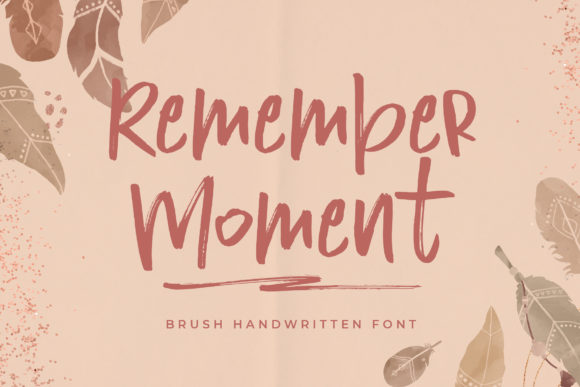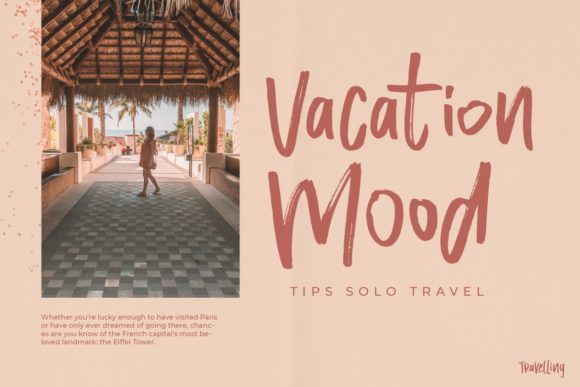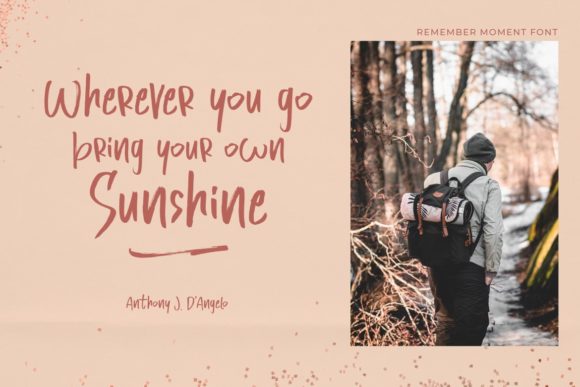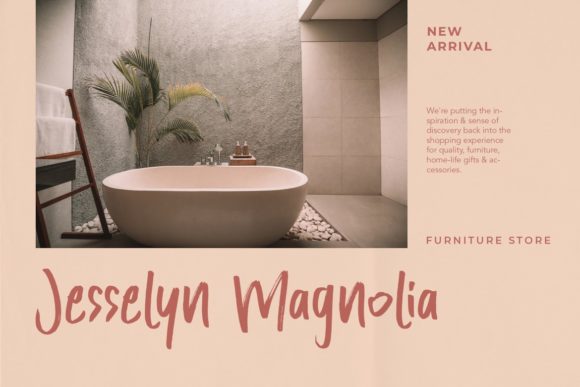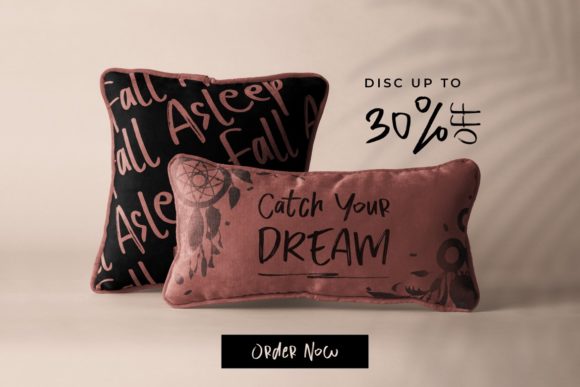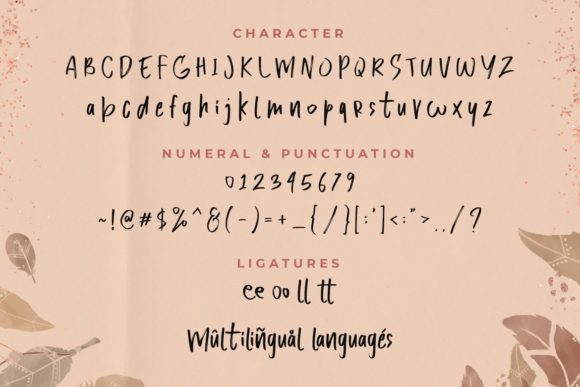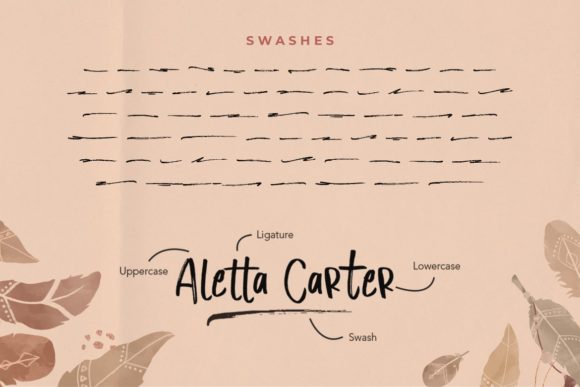
Remember Moment Font
About Remember Moment Font
Remember Moment is a neat and relaxed brush handwritten font. This original look will appeal to a wide range of crafty ideas, from letterheads and titles, to stationery.